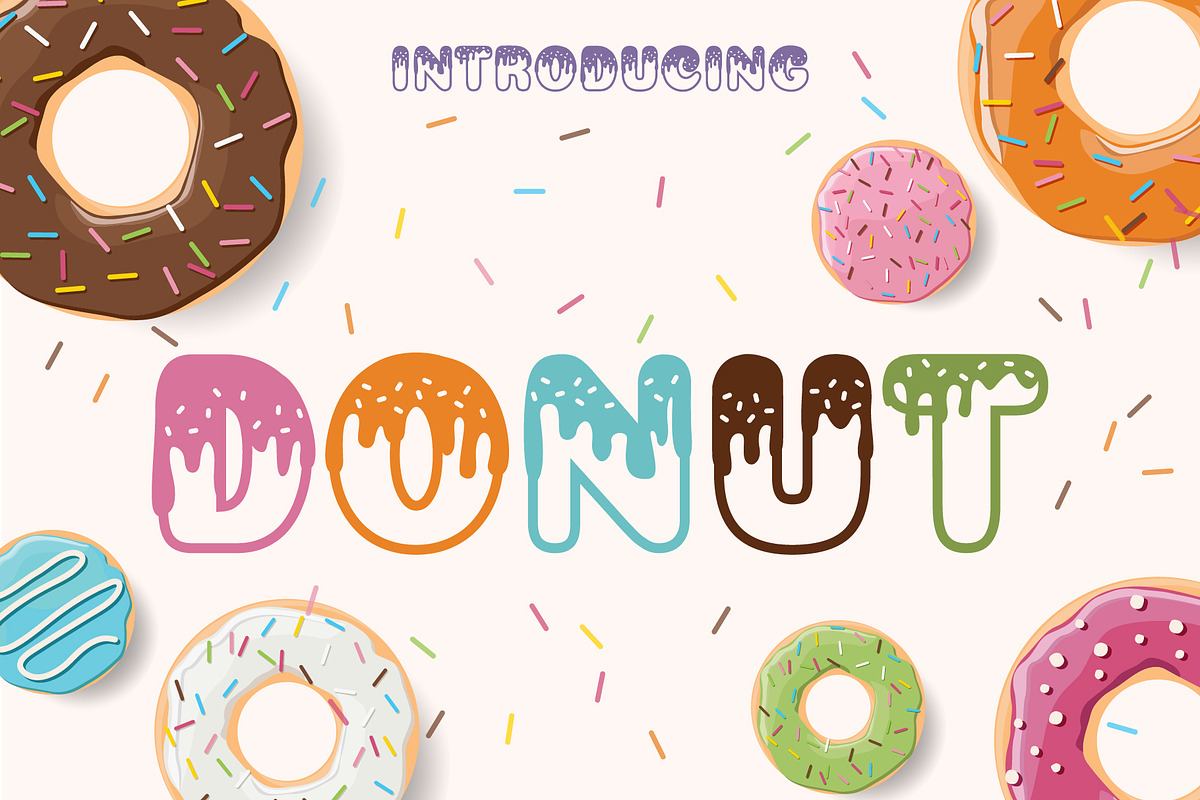
Please note, to use this font for commercial purposes, you must purchase the full version. Donut Fonts is a fun and playful font that captures the sweet and whimsical feel of delicious treats. Perfect for logos, invitations, branding, and creative projects, this font brings a lighthearted and delicious vibe to your designs. Whether you're designing for a bakery, a candy store, or a fun event, Donut Fonts adds a quirky and sweet touch to your work. Test it out and enjoy free download access for personal use. Experience the playful charm of Donut Fonts Free Download before purchasing the commercial license. Add a fun, tasty touch to your designs with Donut Fonts.